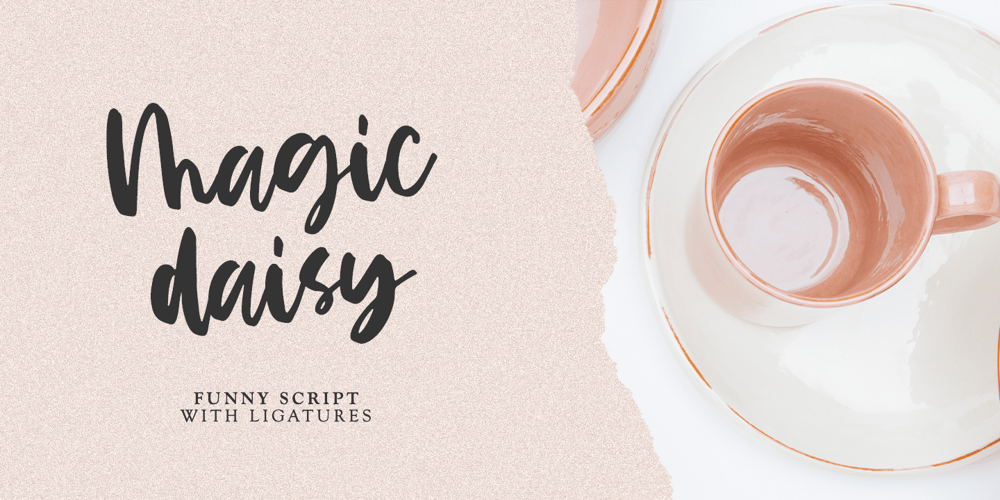
Magic Daisy Font Family was designed by Dmitrii Chirkov and published by Supfonts. Magic Daisy contains 1 styles and family package options. Hello, friends. I keep experimenting with handwritten fonts, shapes and lines. I want the font to set the tone, the atmosphere, look defiant, and read well.Try my new font, I think it combines all these qualities. Simple and clear, looks at ease. It is perfect for decoration or design where you don’t need strict style :)Test it out below to see how it could look for your next project!Includes: Uppercase and lowercase Numbers and punctuation Foreign language support Ligatures Check out my blog: https://www.instagram.com/zloillev pinterest.com/dmitriychirkov7 Enjoy